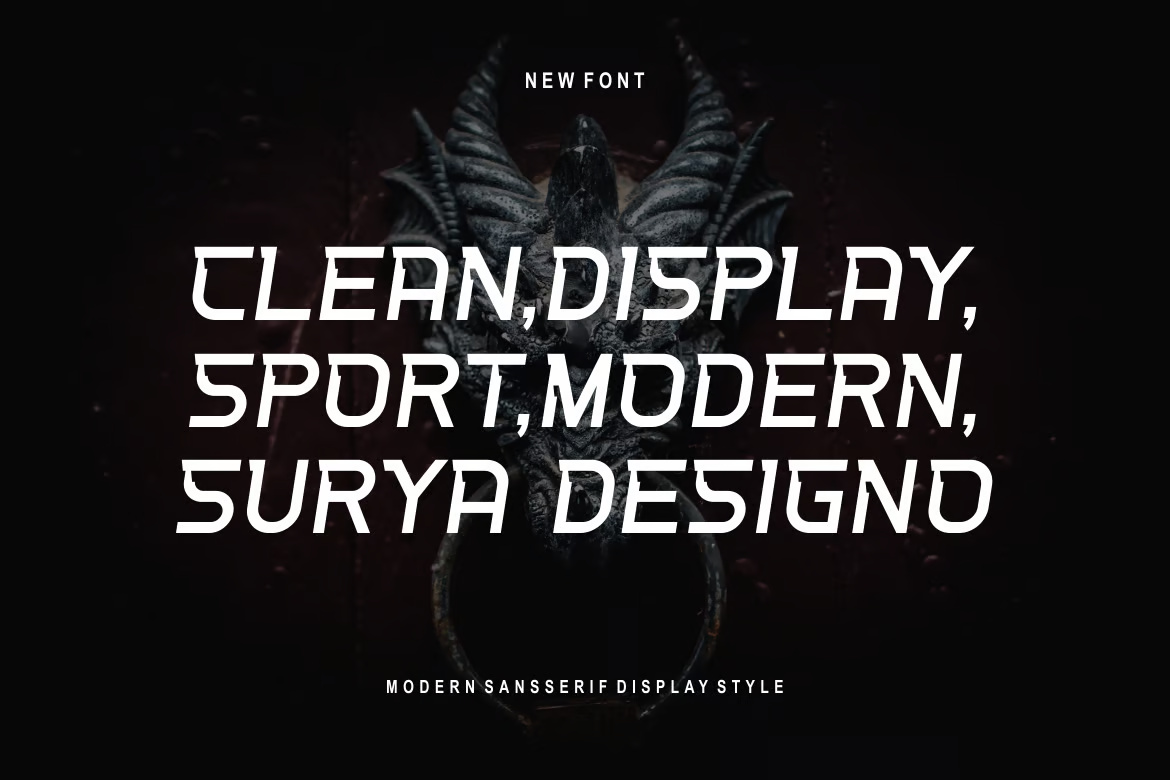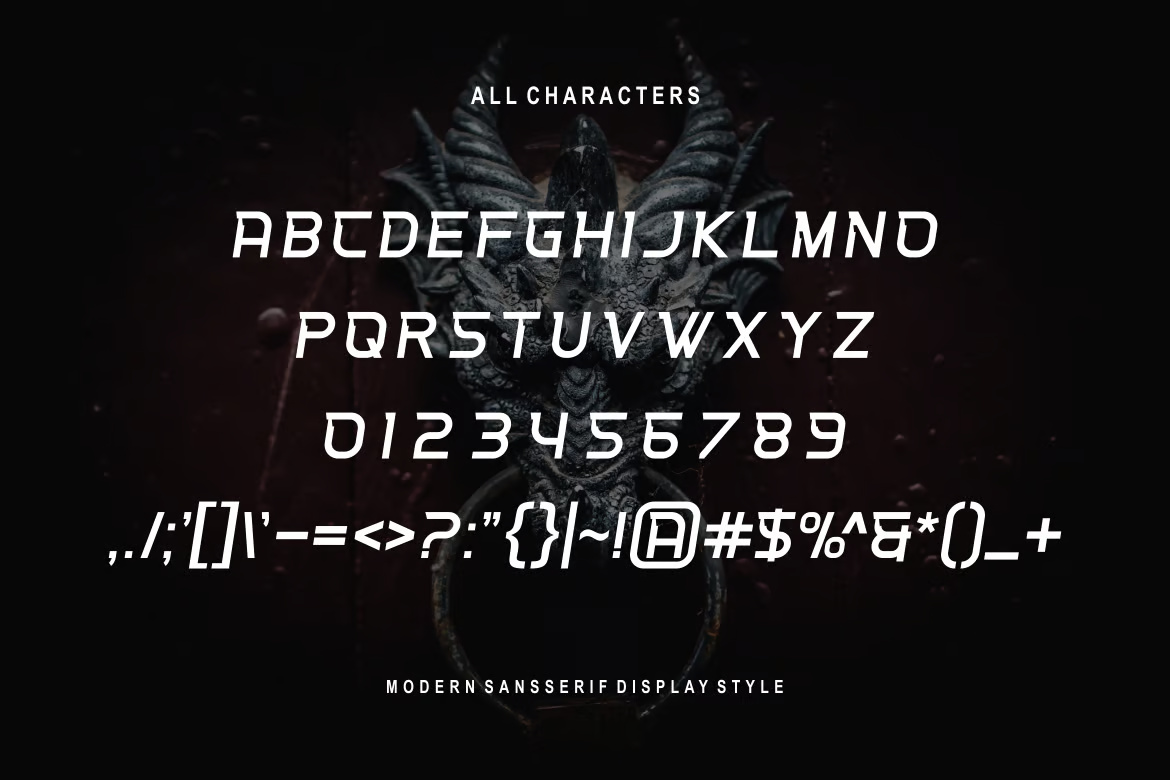
Antaboga Sans Serif Display Font
Antaboga Font is a bold and authentic modern display typeface that makes a strong statement in any design. Its clean, distinctive lines and dynamic presence make it ideal for branding projects, including logos, t-shirt printing, esports, posters, and more. Whether you’re looking to create eye-catching visuals or impactful messages, Antaboga stands out in a wide range of contexts. With its unique and versatile design, it brings both modernity and strength to your creative endeavors.